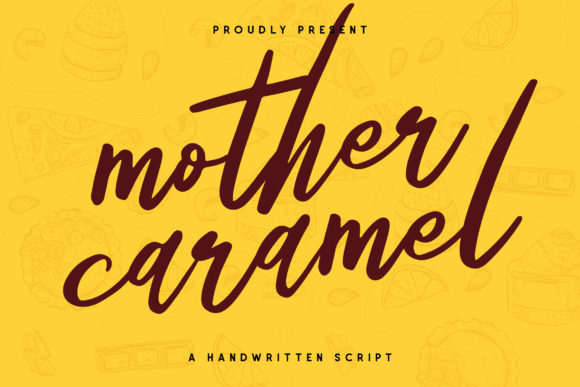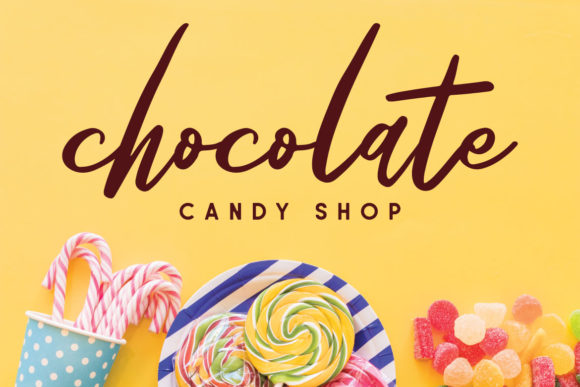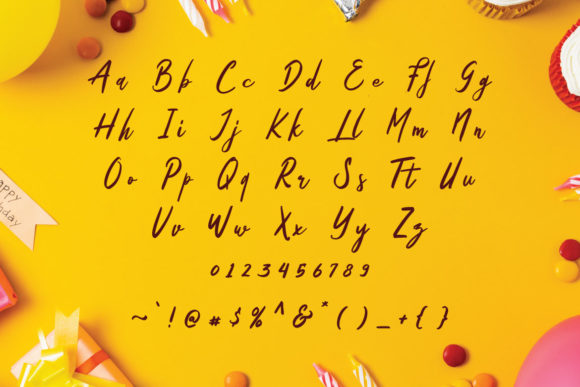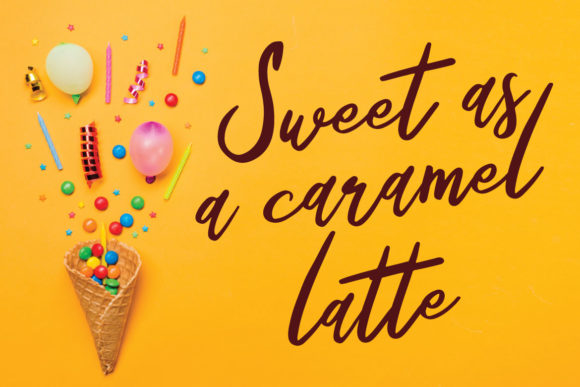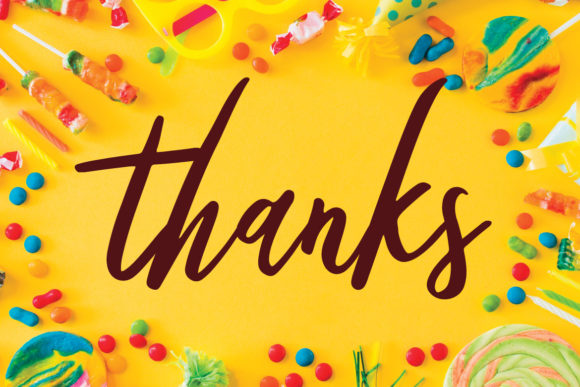
Mother Caramel Font
About Mother Caramel Font
Mother Caramel is a sweet handwritten font. Get inspired by its authentic feel and use it to create gorgeous wedding invitations, beautiful stationary art, eye-catching social media posts, and cute greeting cards.